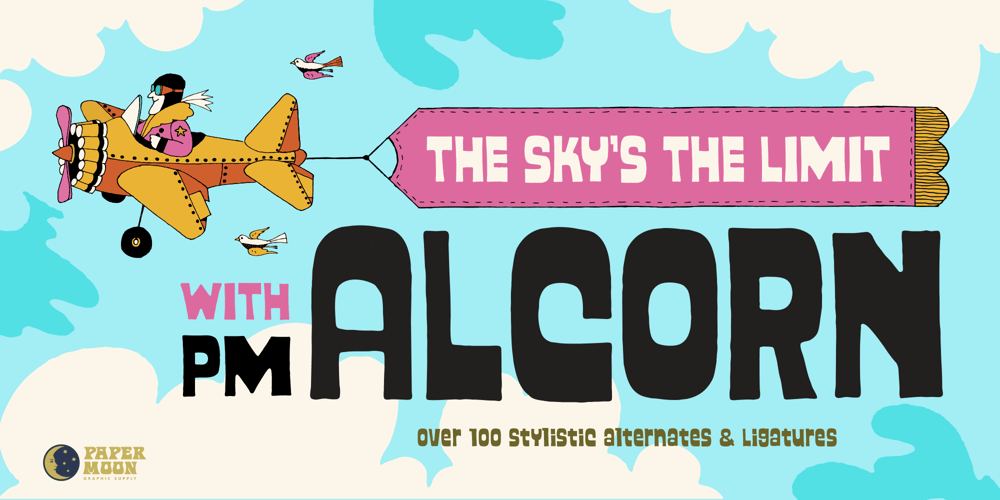
PM Alcorn Font Family was designed by Scott Banks and published by Paper Moon Type & Graphic Supply. PM Alcorn contains 1 styles and family package options. A new font inspired by classic retro and mid-century modern interlocking hand-written typography.Do you need to create some fun snack packaging to stand out on the shelf? PM Alcorn will quell your appetite. Are you designing a product that needs a funky, friendly retro vibe? PM Alcorn is fun, funky, friendly, and easy to read! It’s perfect for everything from games to bath products. Plus with tons of ligatures and stylistic alternates it has real hand-lettered feel.